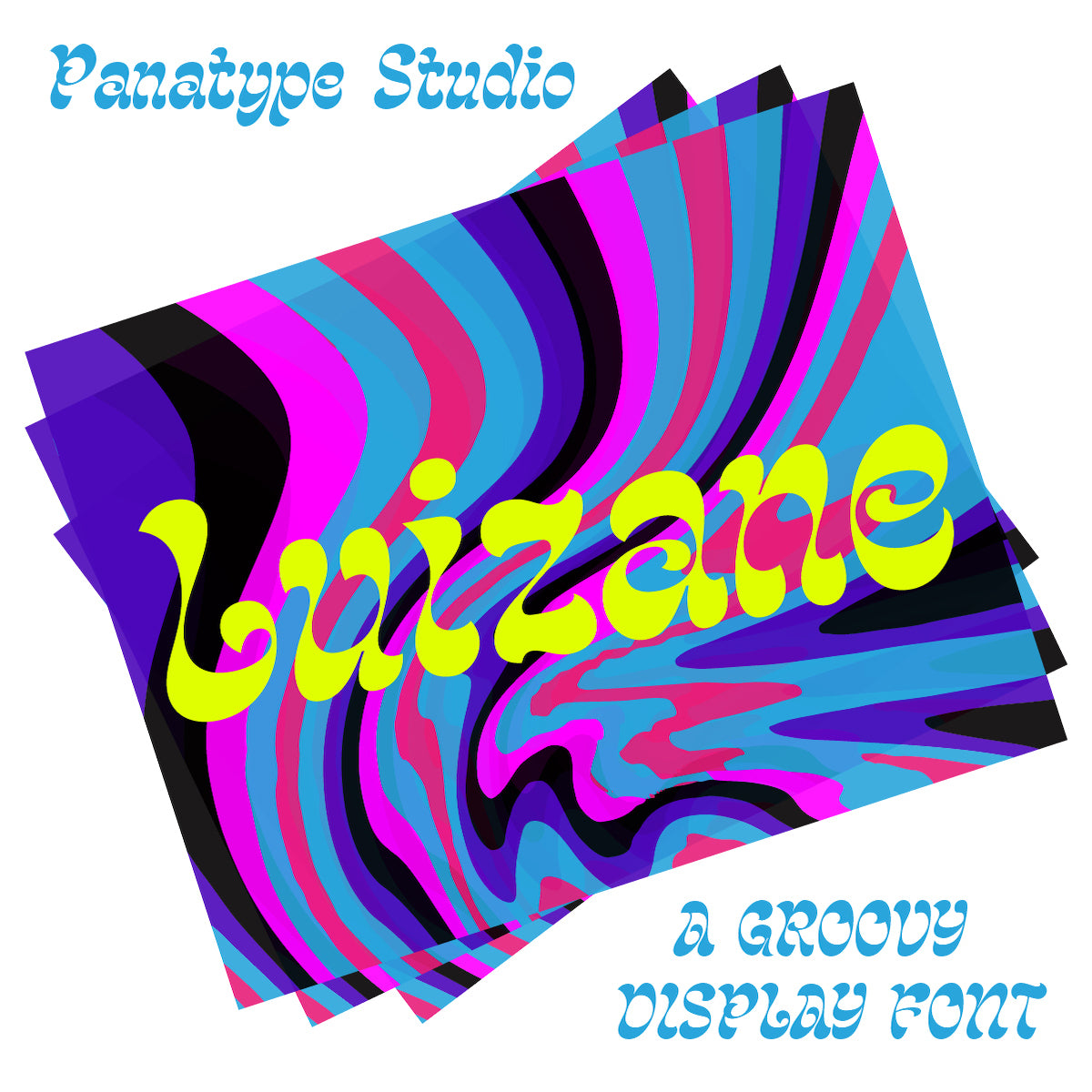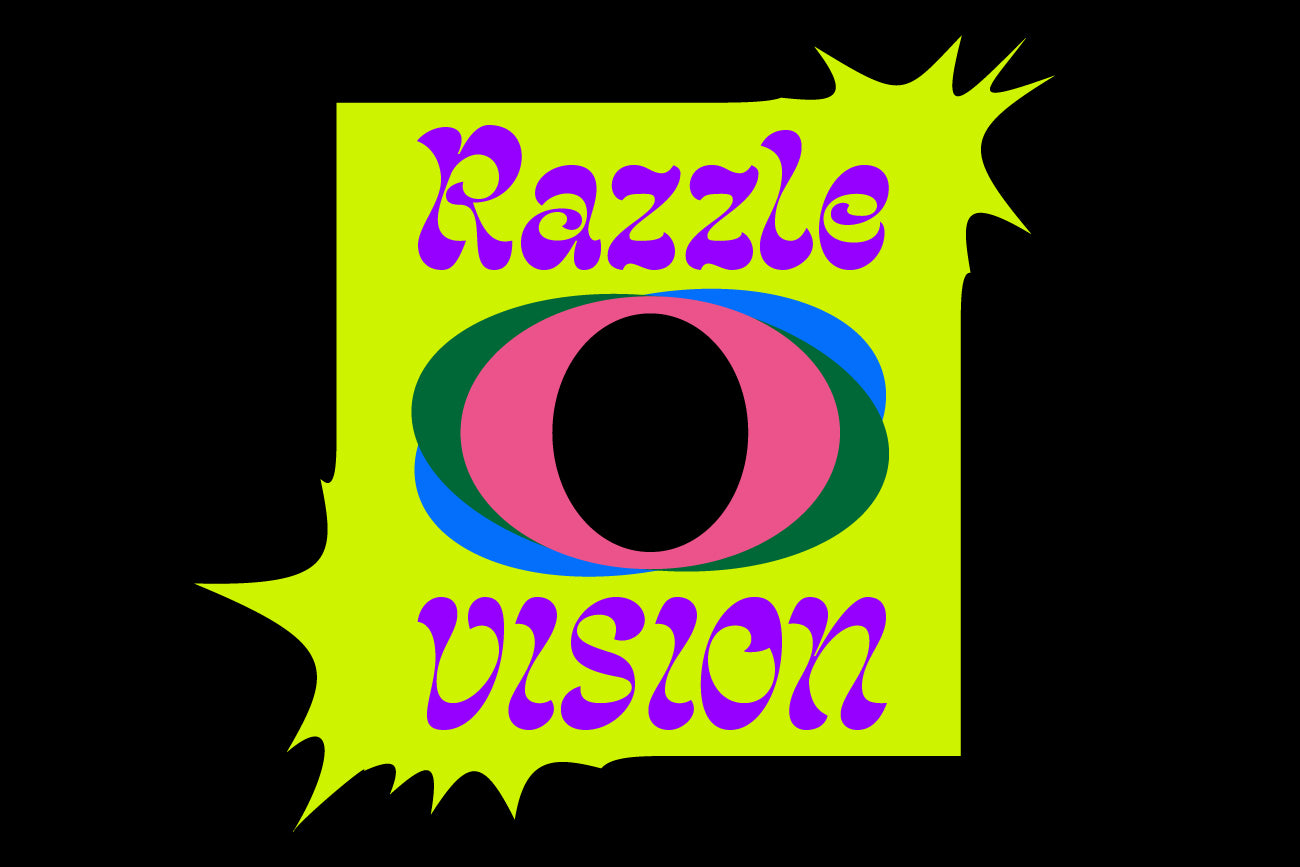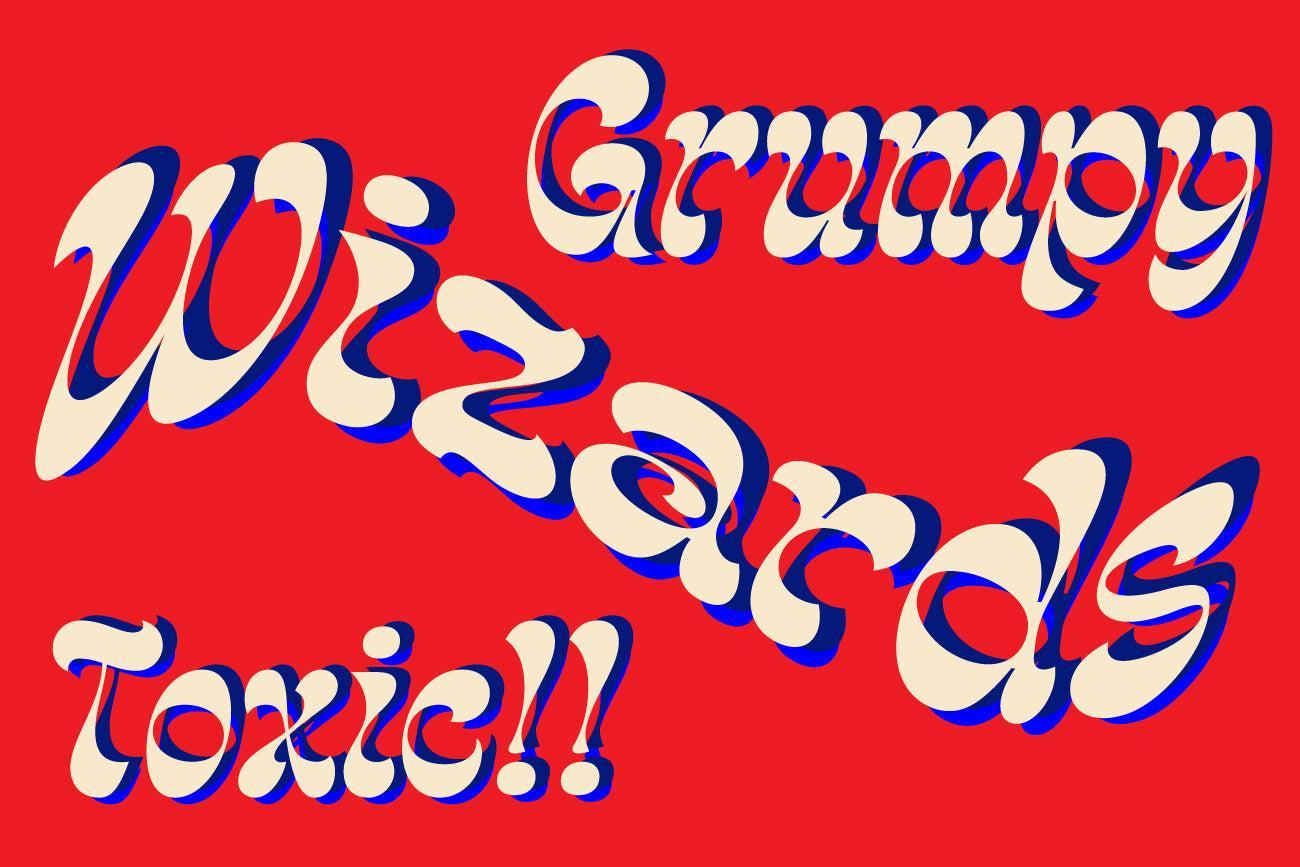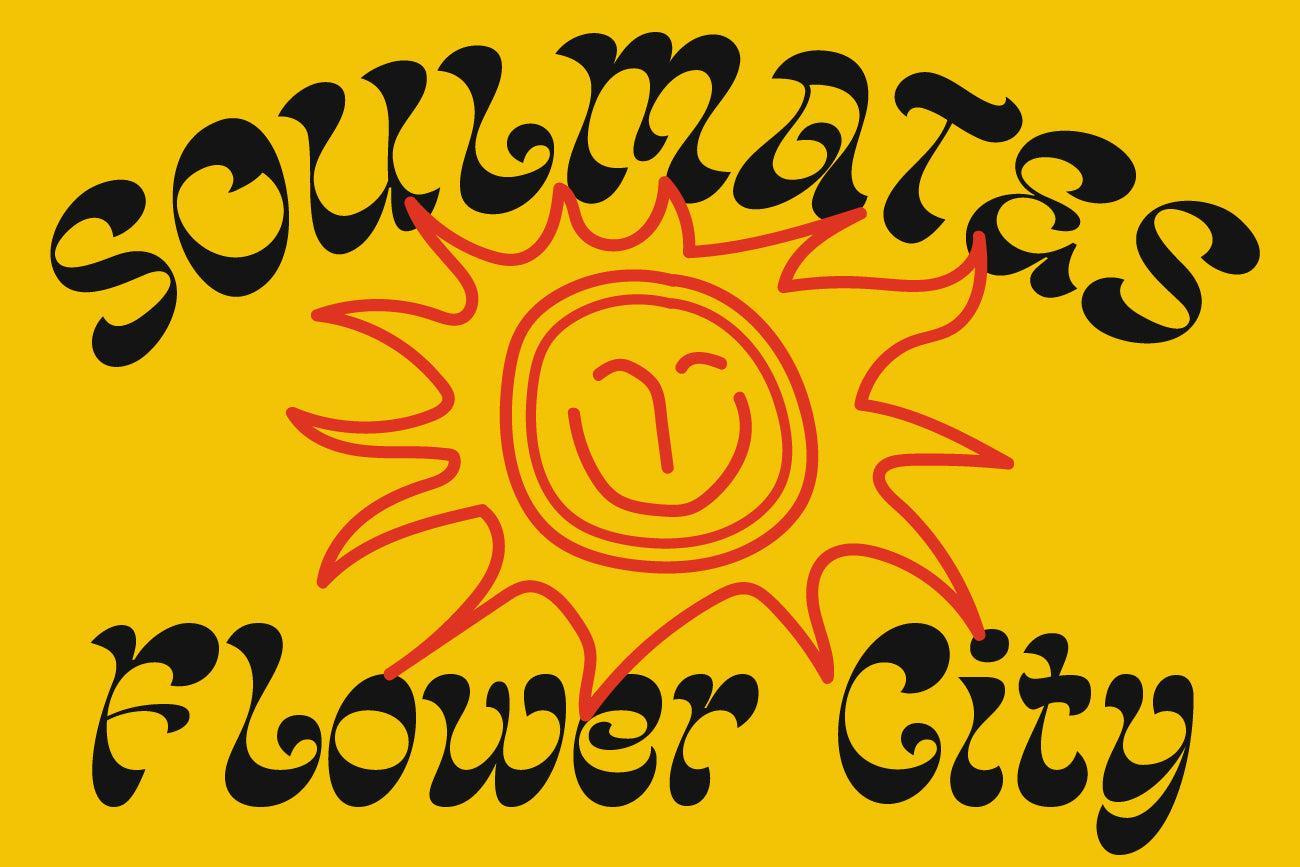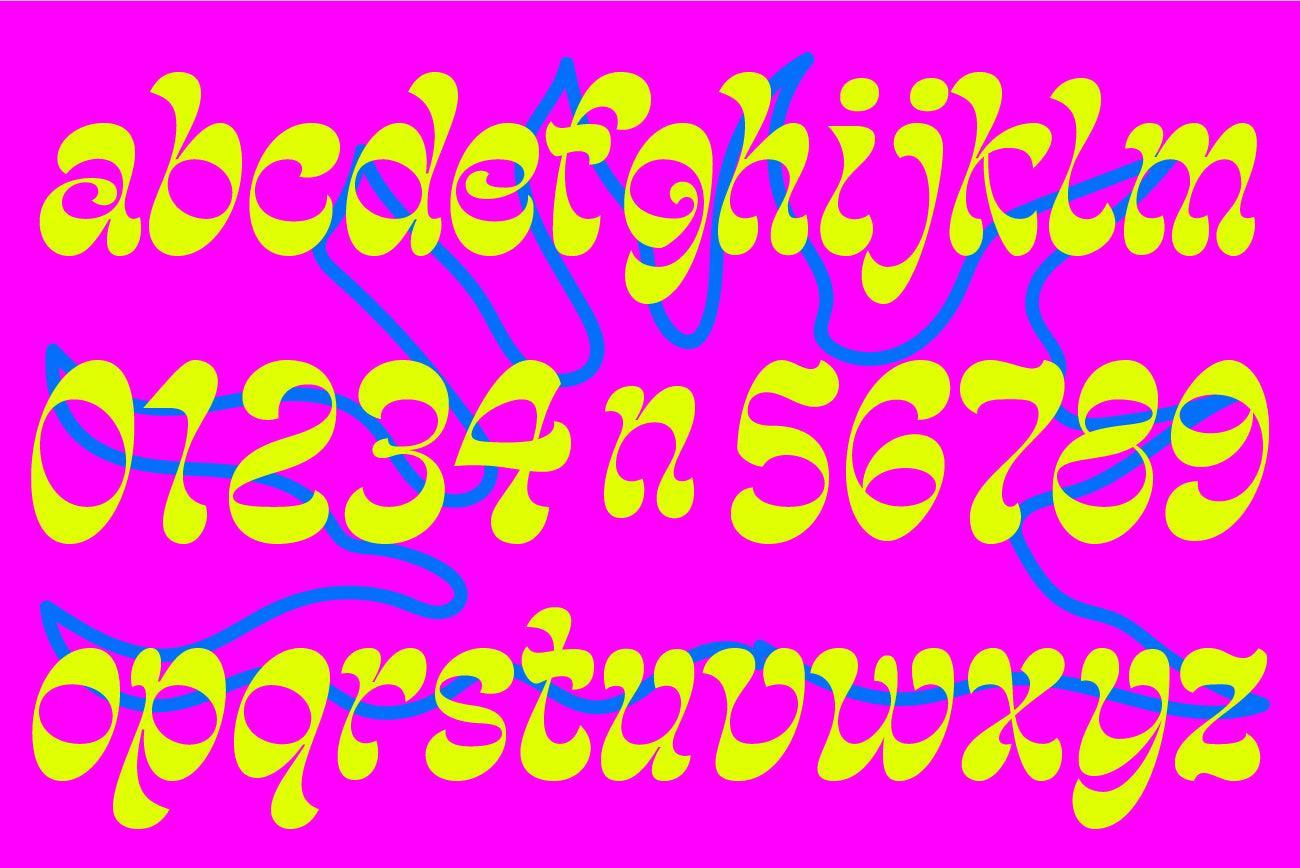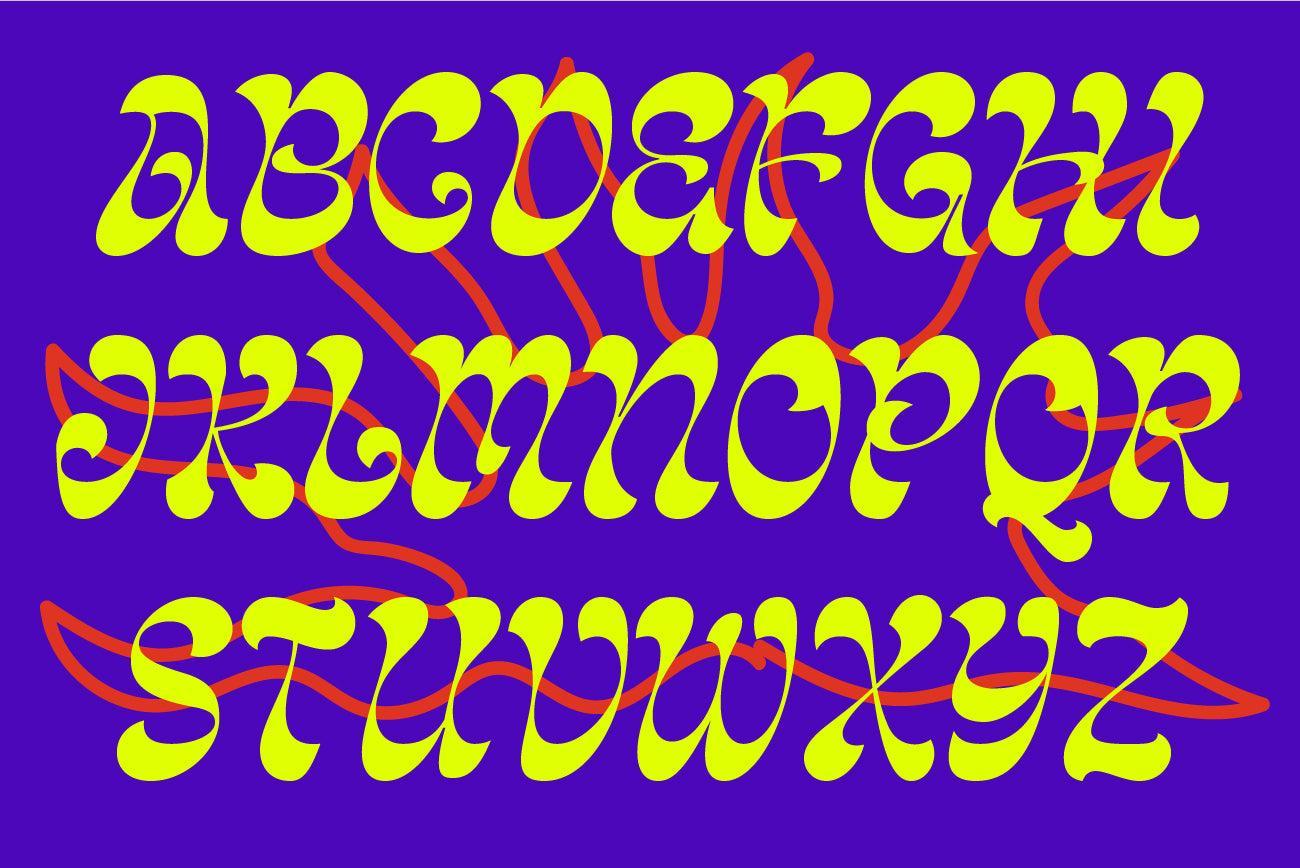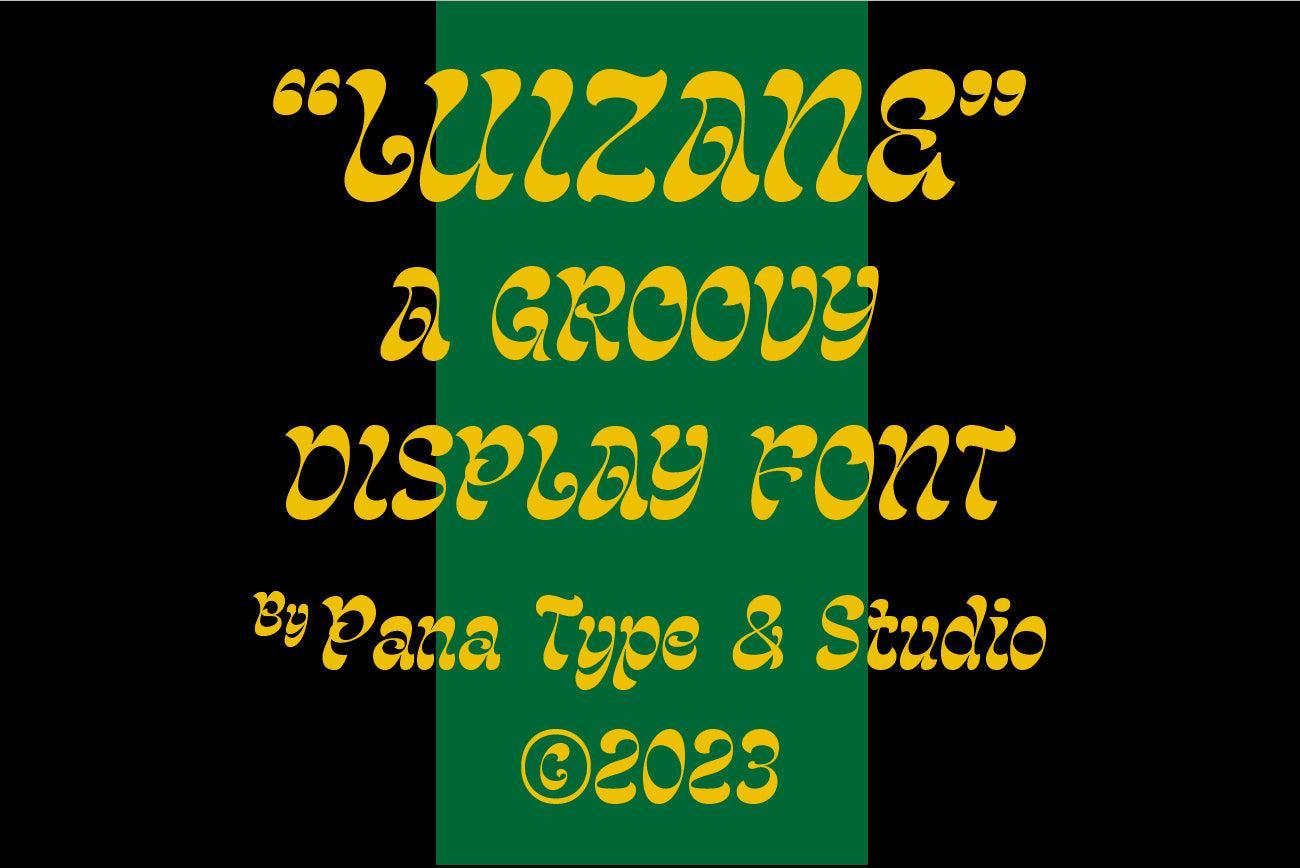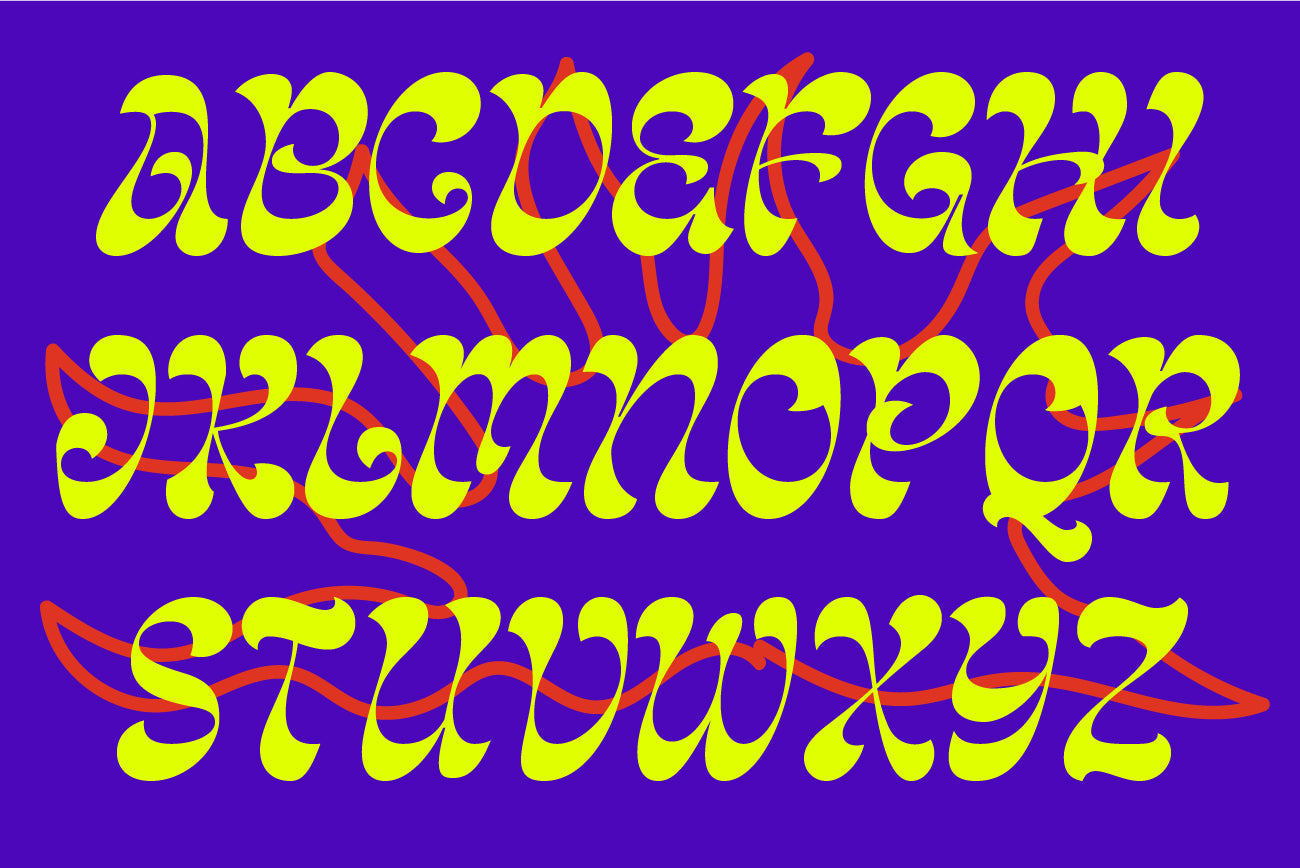
Luizane Groovy Font
Luizane Groovy Font is a bold, psychedelic-inspired typeface designed for various graphic design applications. Its retro and playful style makes it suitable for a wide range of creative projects.